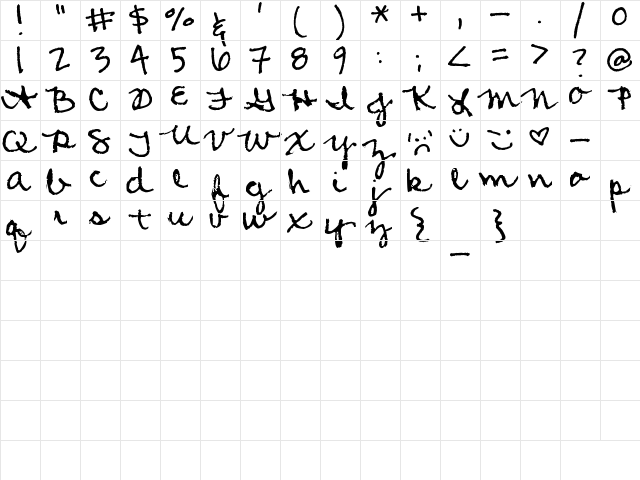
Amanda's Script Regular
| Designer | Amanda Bottoms |
Design Context for Amanda's Script Typeface
Amanda's Script brings a calligraphic fluidity to the page — its connecting strokes and expressive curves give it an unmistakably human quality.
Font Pairing: Combine Amanda's Script with a simple geometric sans for maximum contrast — the tension between flowing curves and clean structure is a classic typographic pairing.
Pro Tip: Pair Amanda's Script with a clean sans-serif for supporting text. The contrast between fluid script and geometric structure creates an elegant typographic hierarchy.